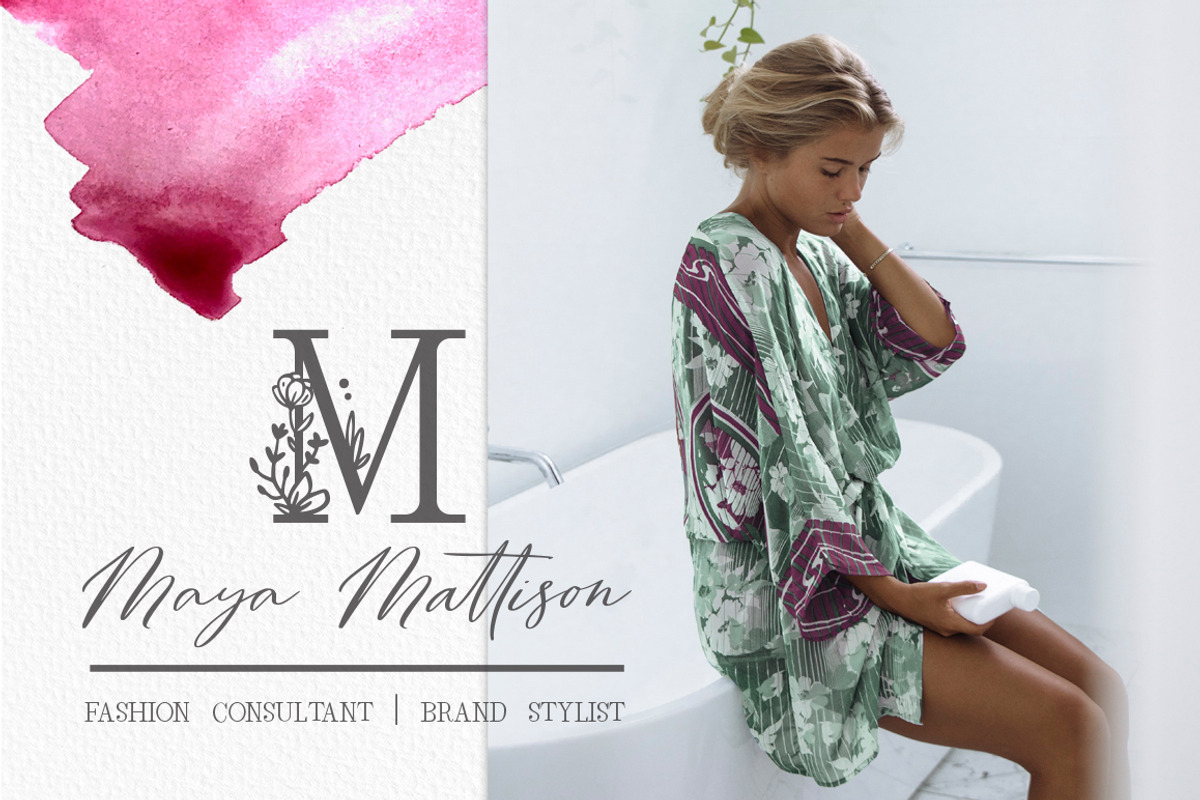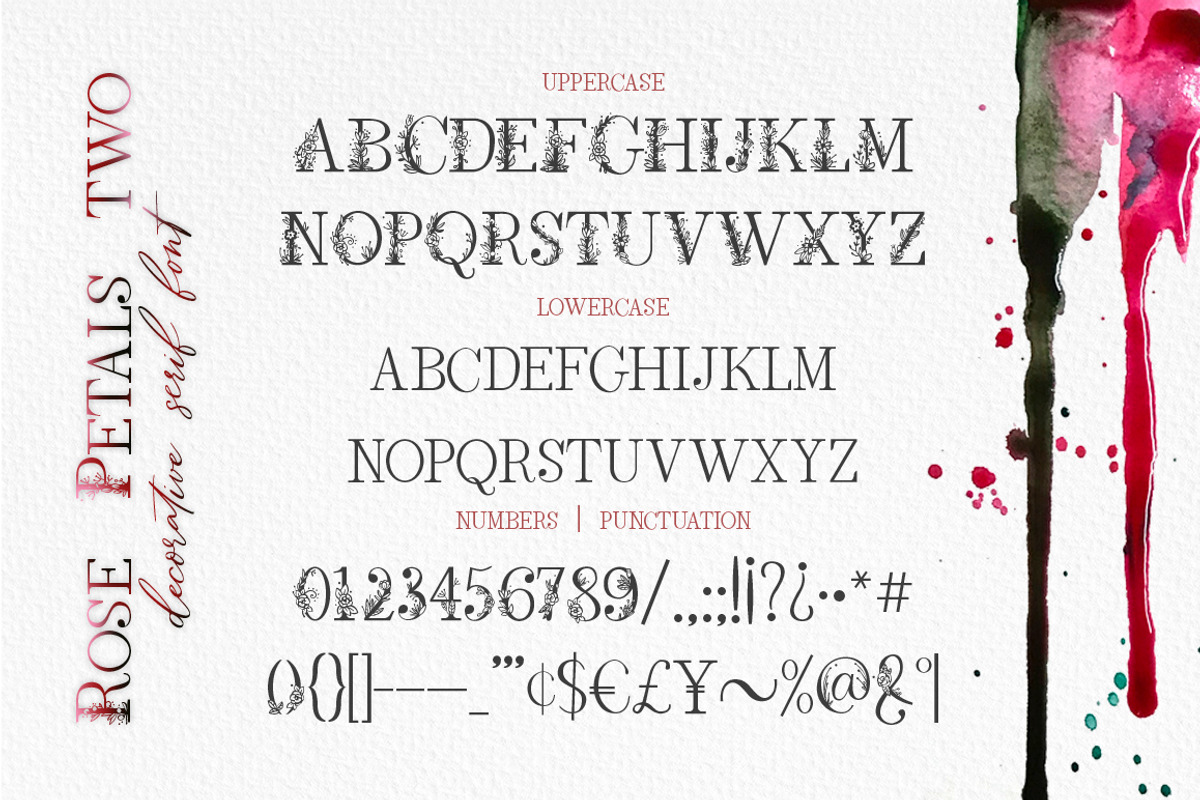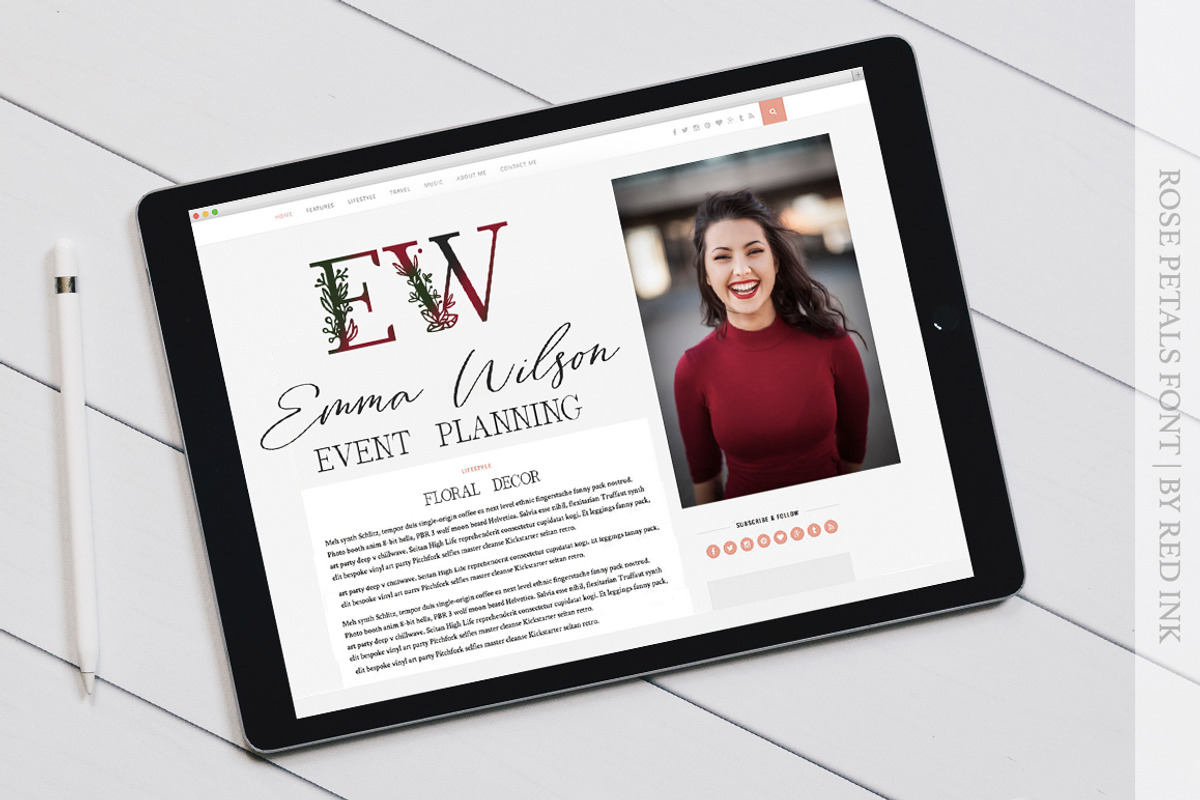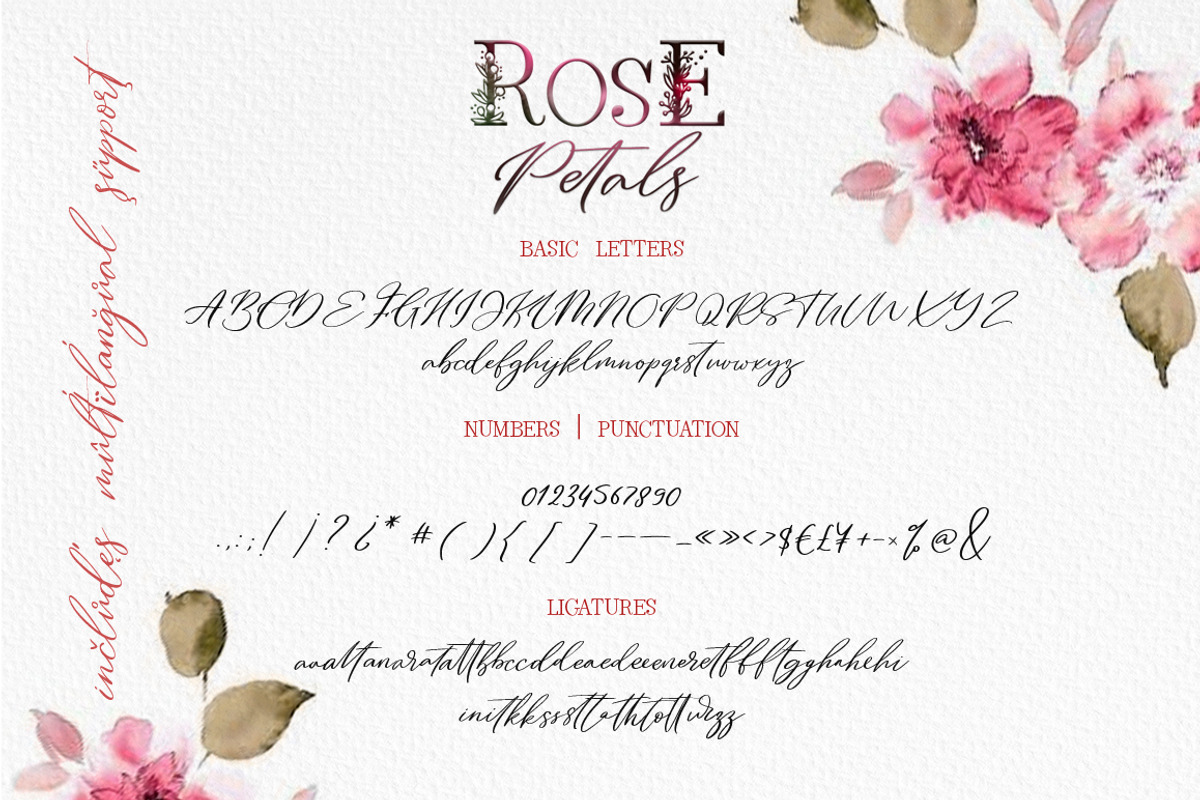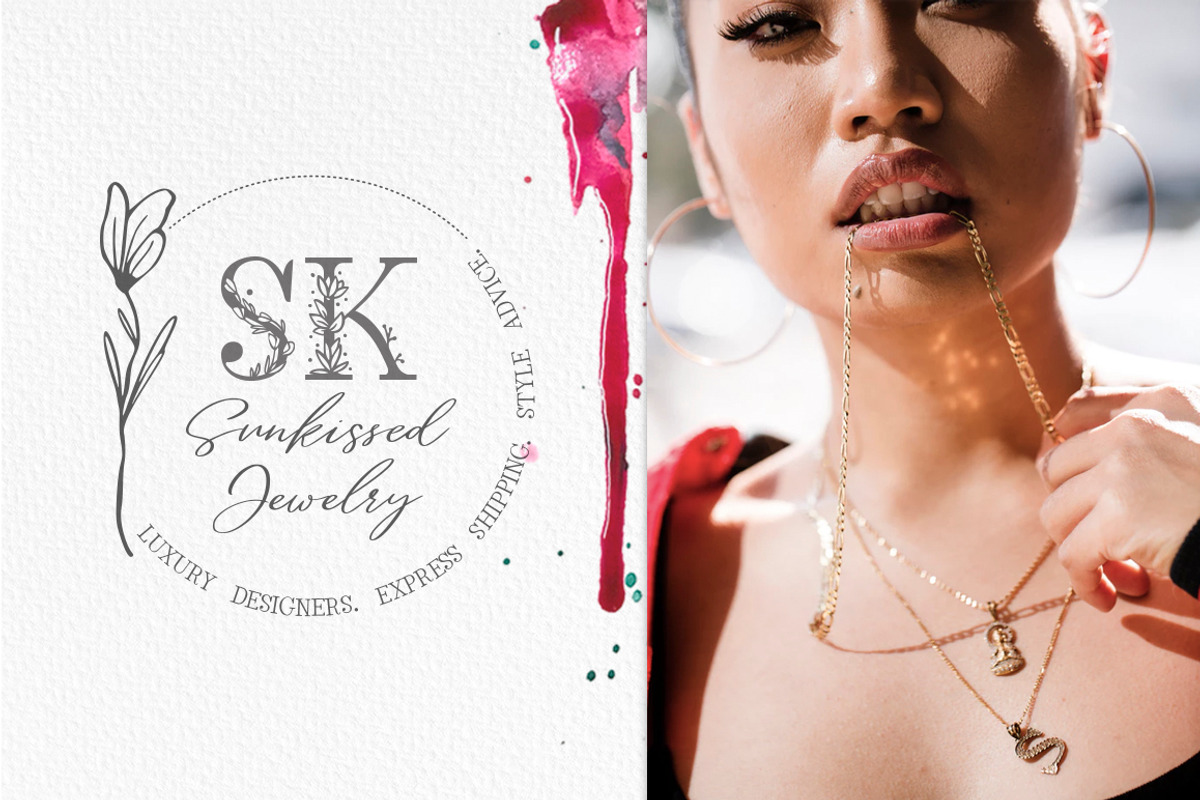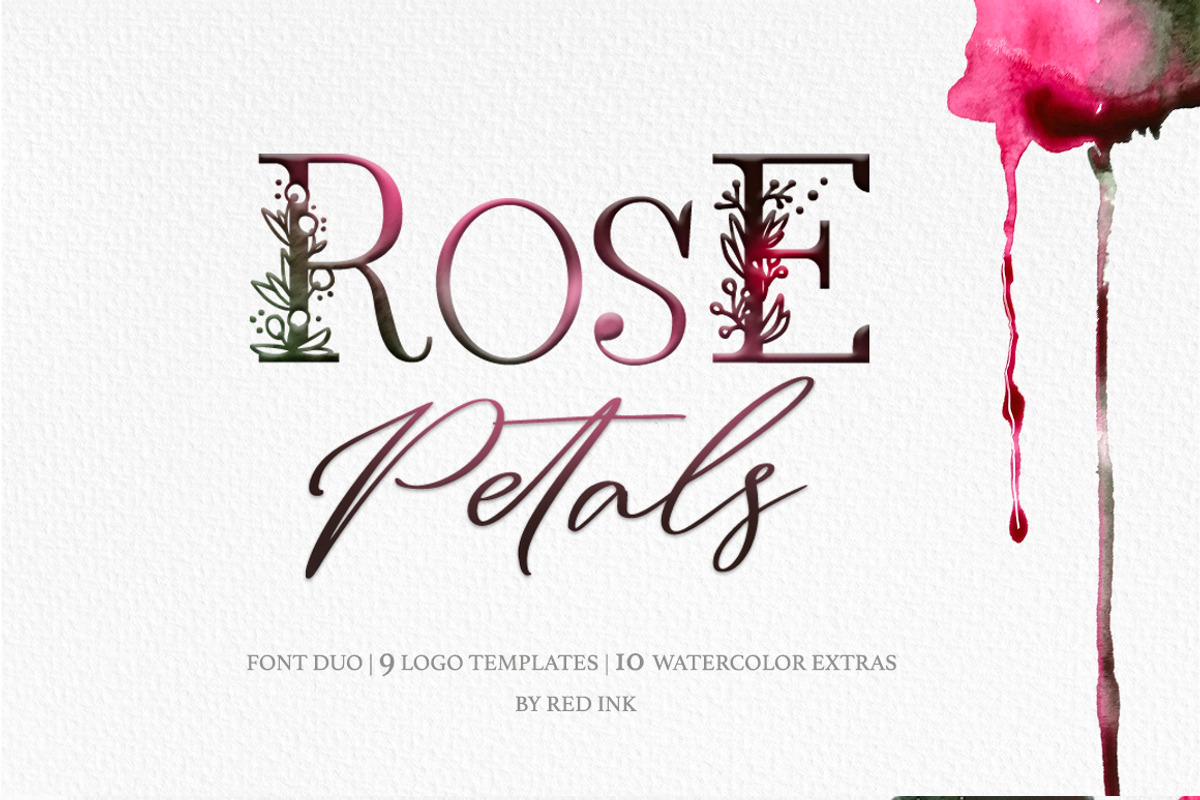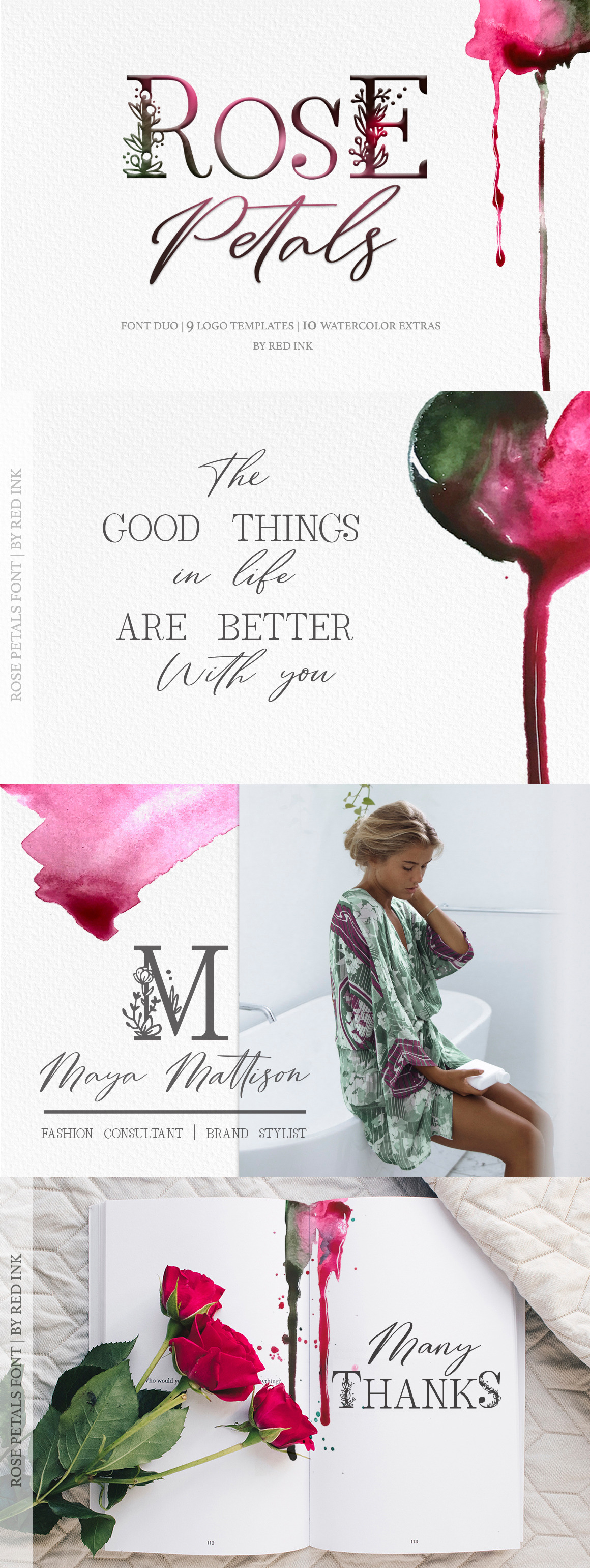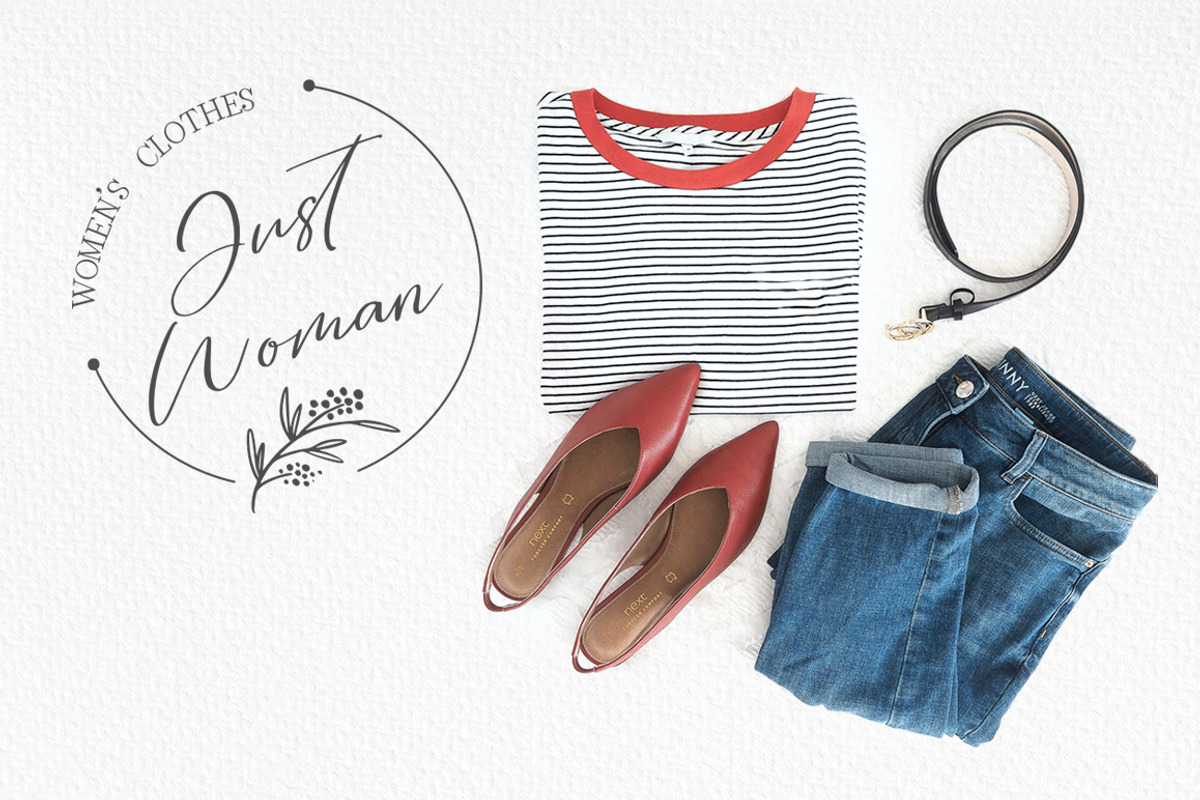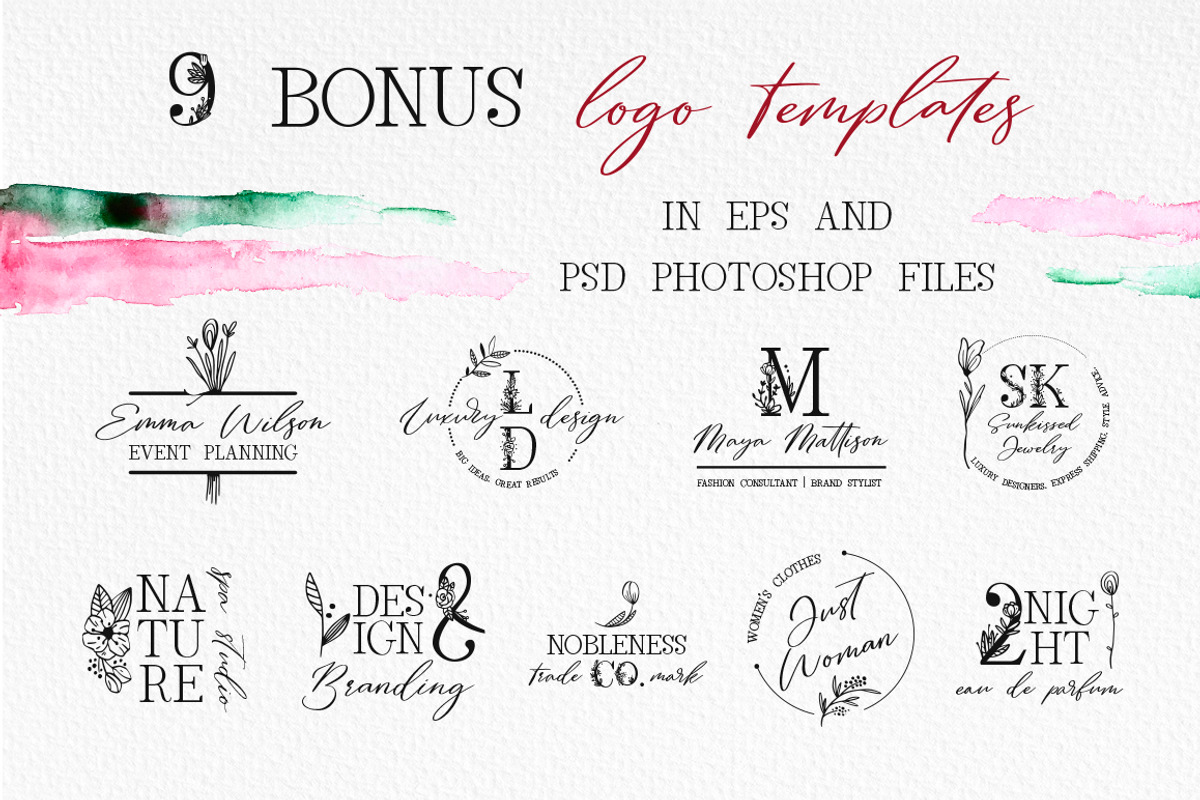
Rose Petals. Font duo + Bonuses.
Rose Petals is a beautiful gentle pair of script and serif fonts. Modern, expressive; perfectly combined typographic harmony is perfect for posters, greeting cards, t-shits, branding materials, quotes and any other amazing projects you are working on. Each font can be used separately. In conjunction they give a sense of lightness and delicacy and some vintage feel )))
Rose Petals Script font have many ligatures to to repeat the peculiarities of hand-writing, where each letter is special where combinations of letters are unique and the work of a human feels.
Rose Petals two – serif font containing upper & lowercase characters, numerals and a large range of punctuation and comes with decorative detailed floral uppercase letters and numbers.